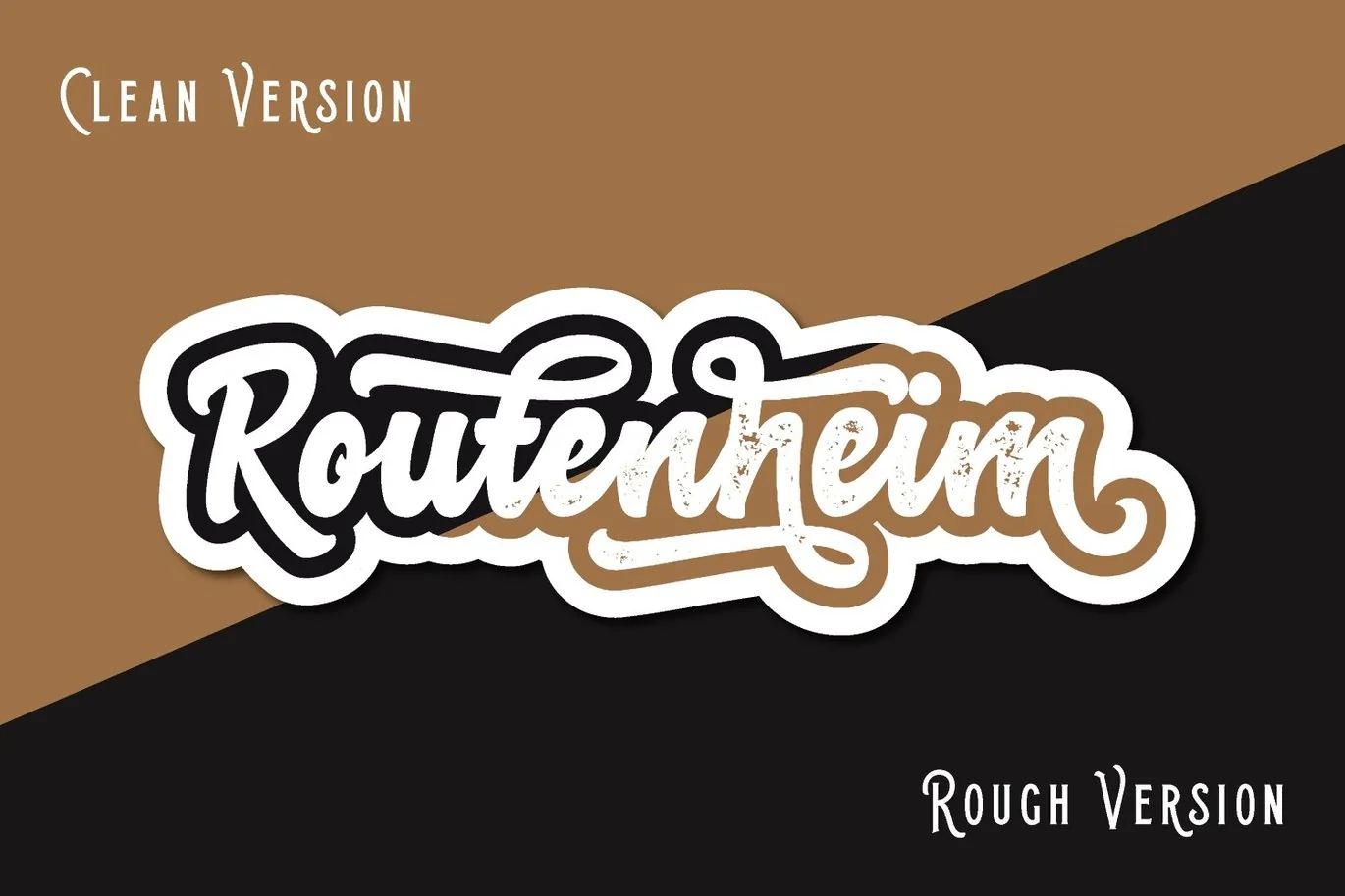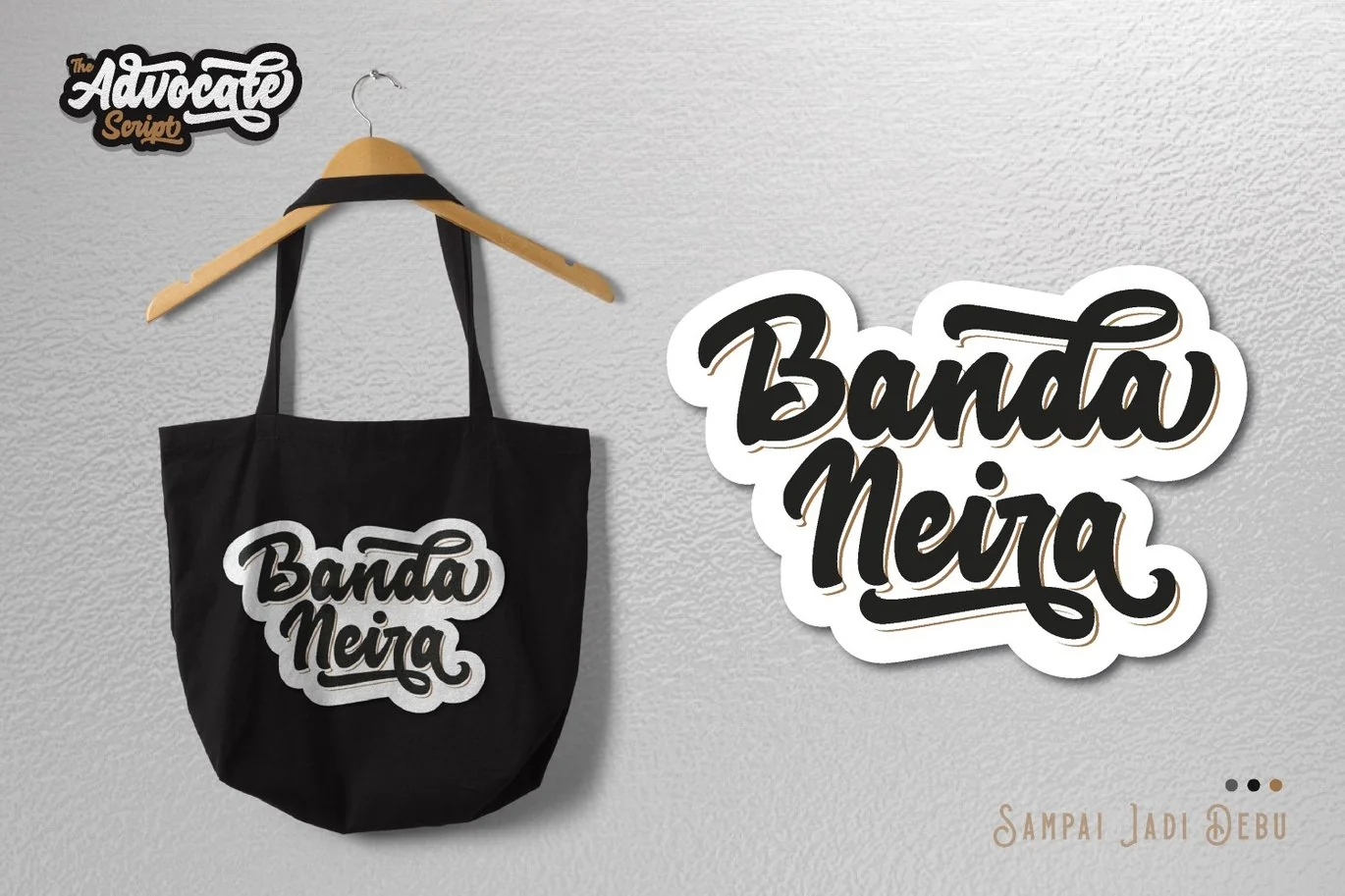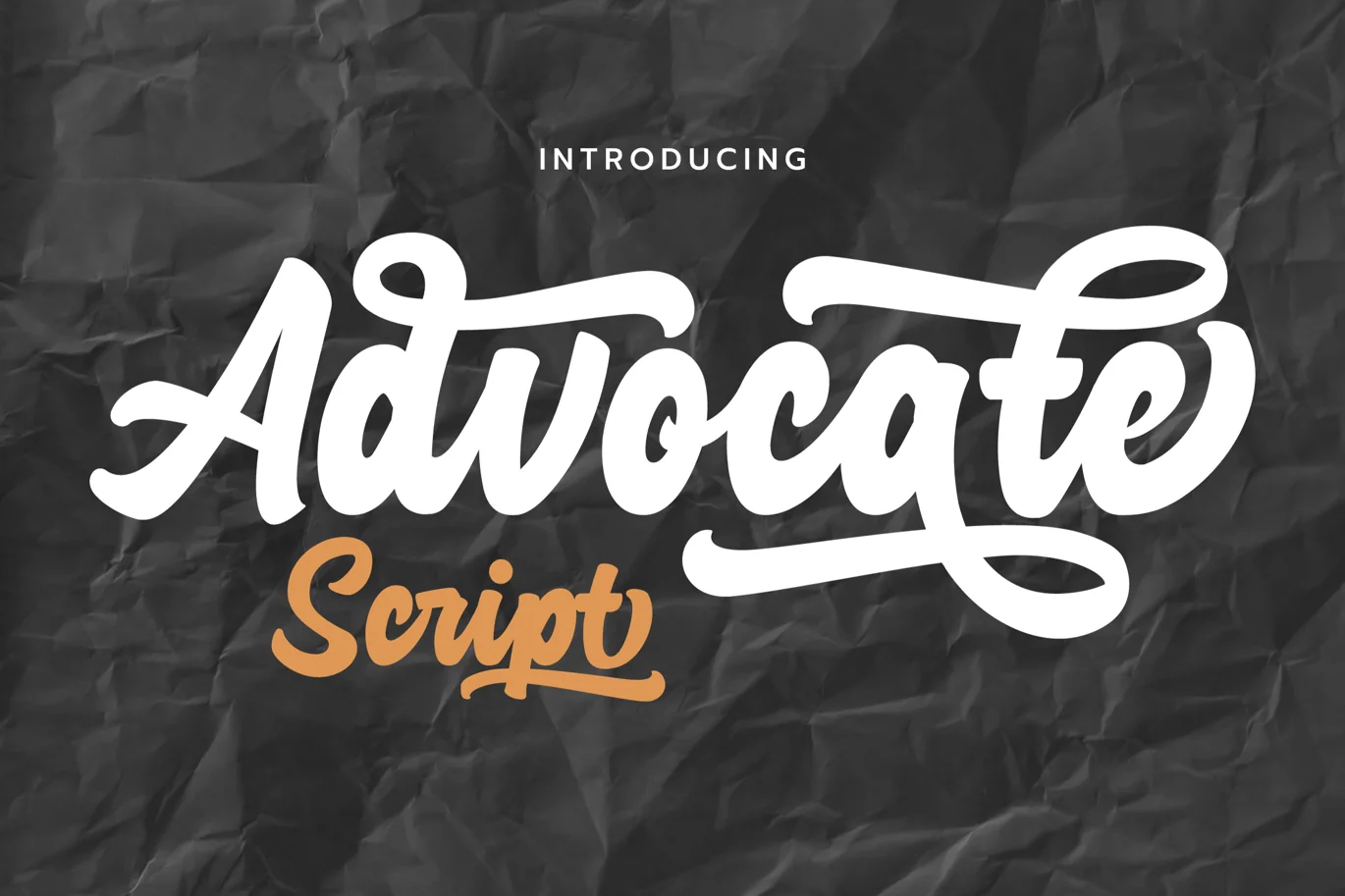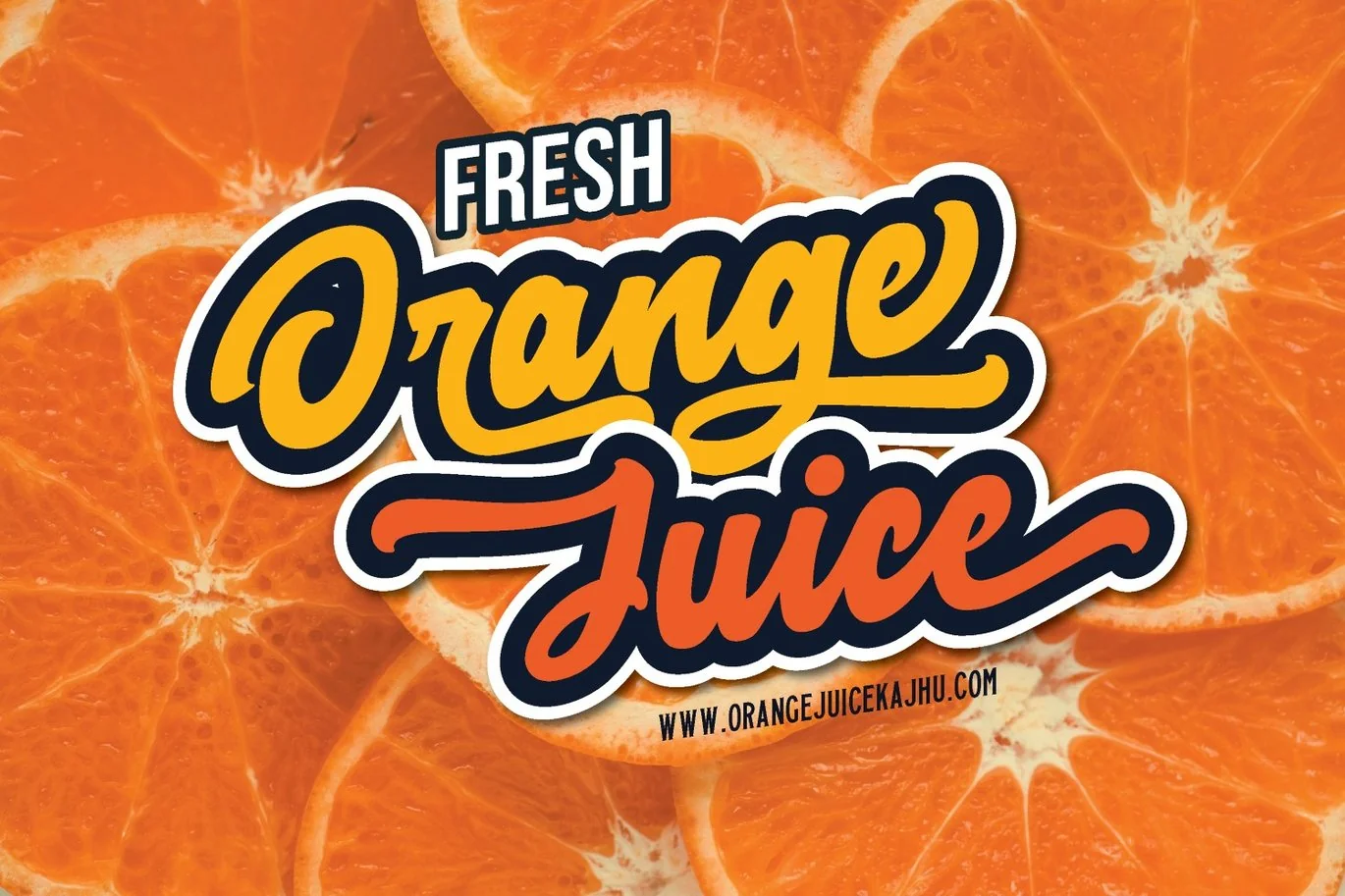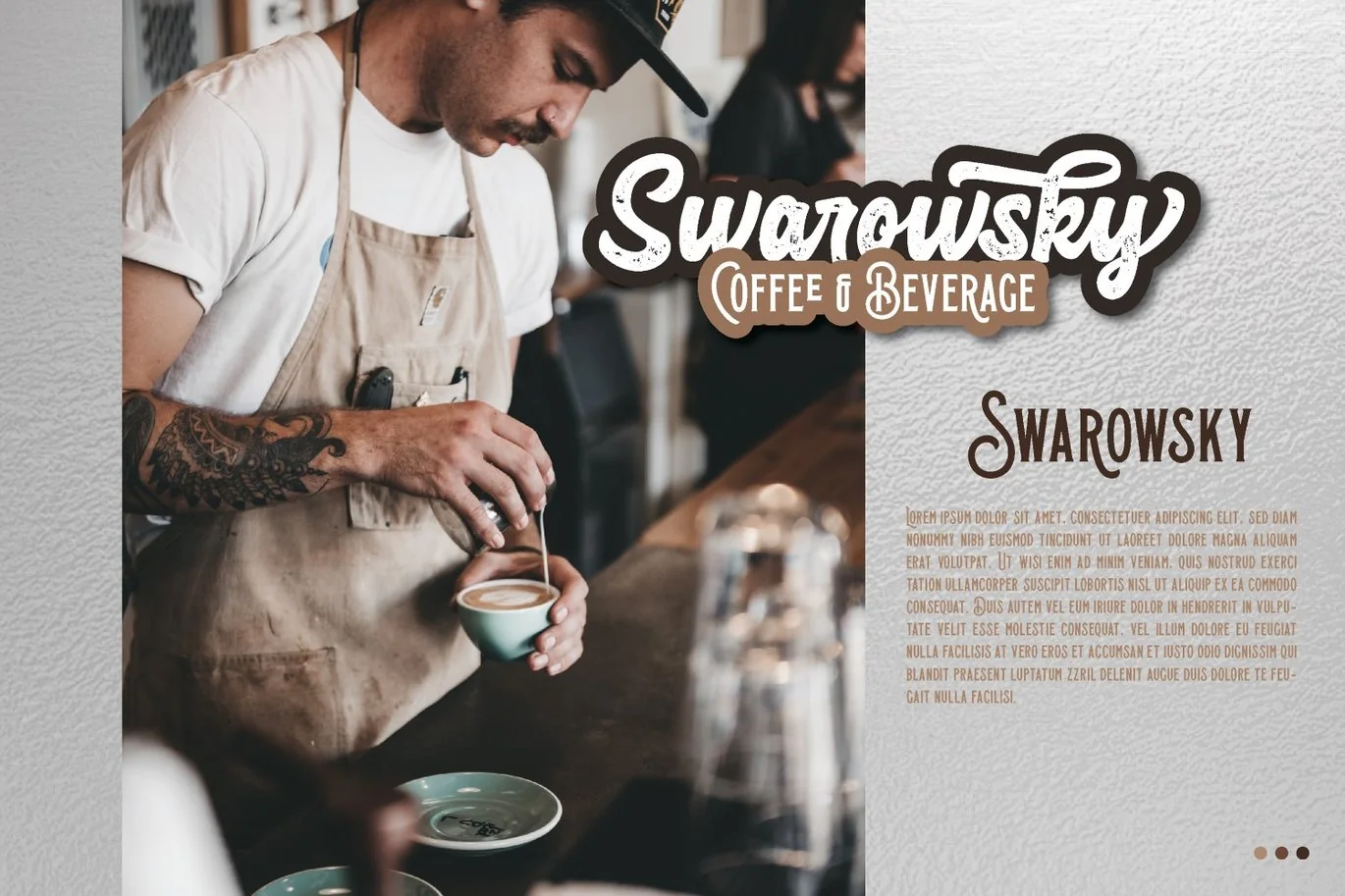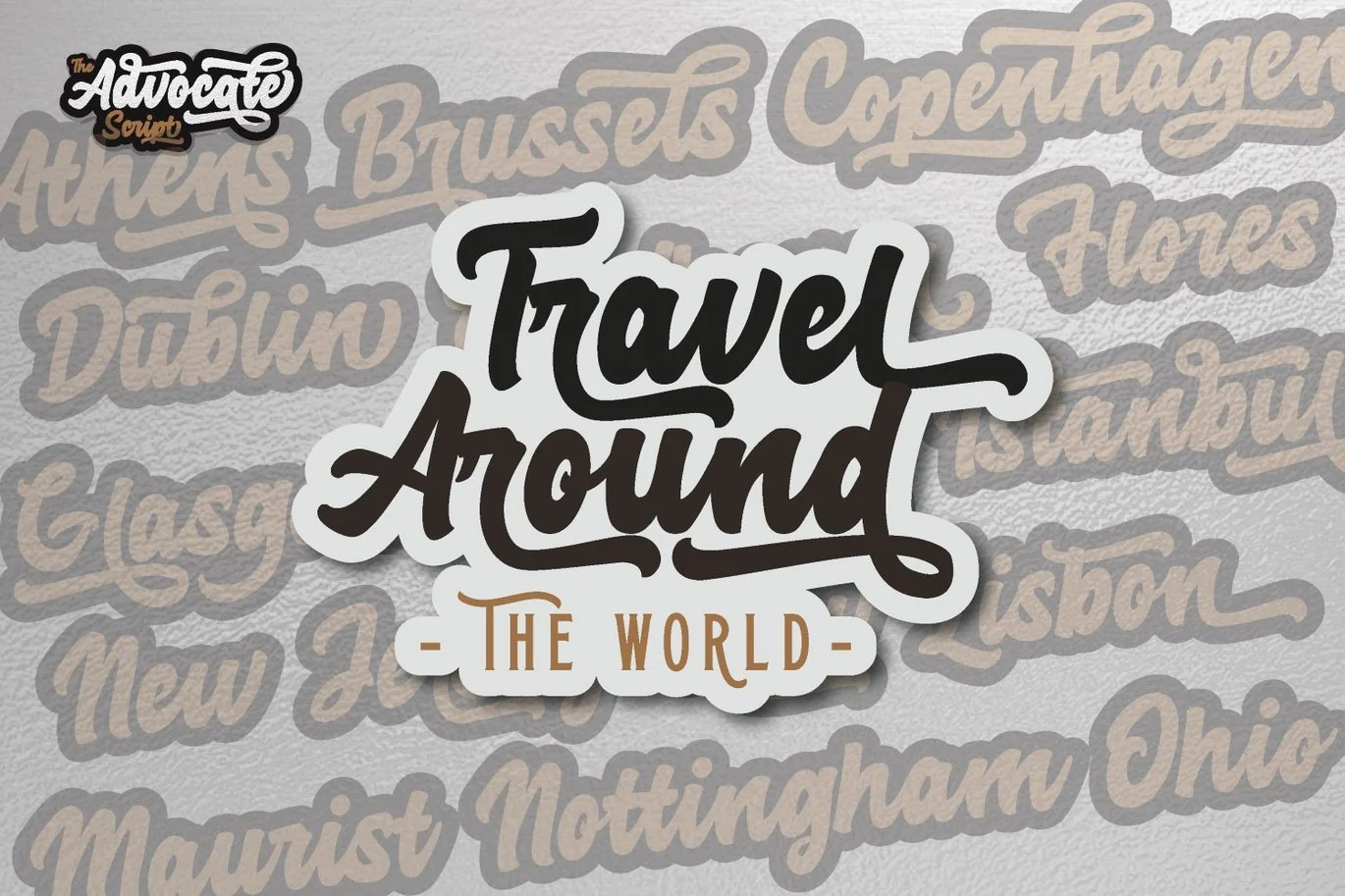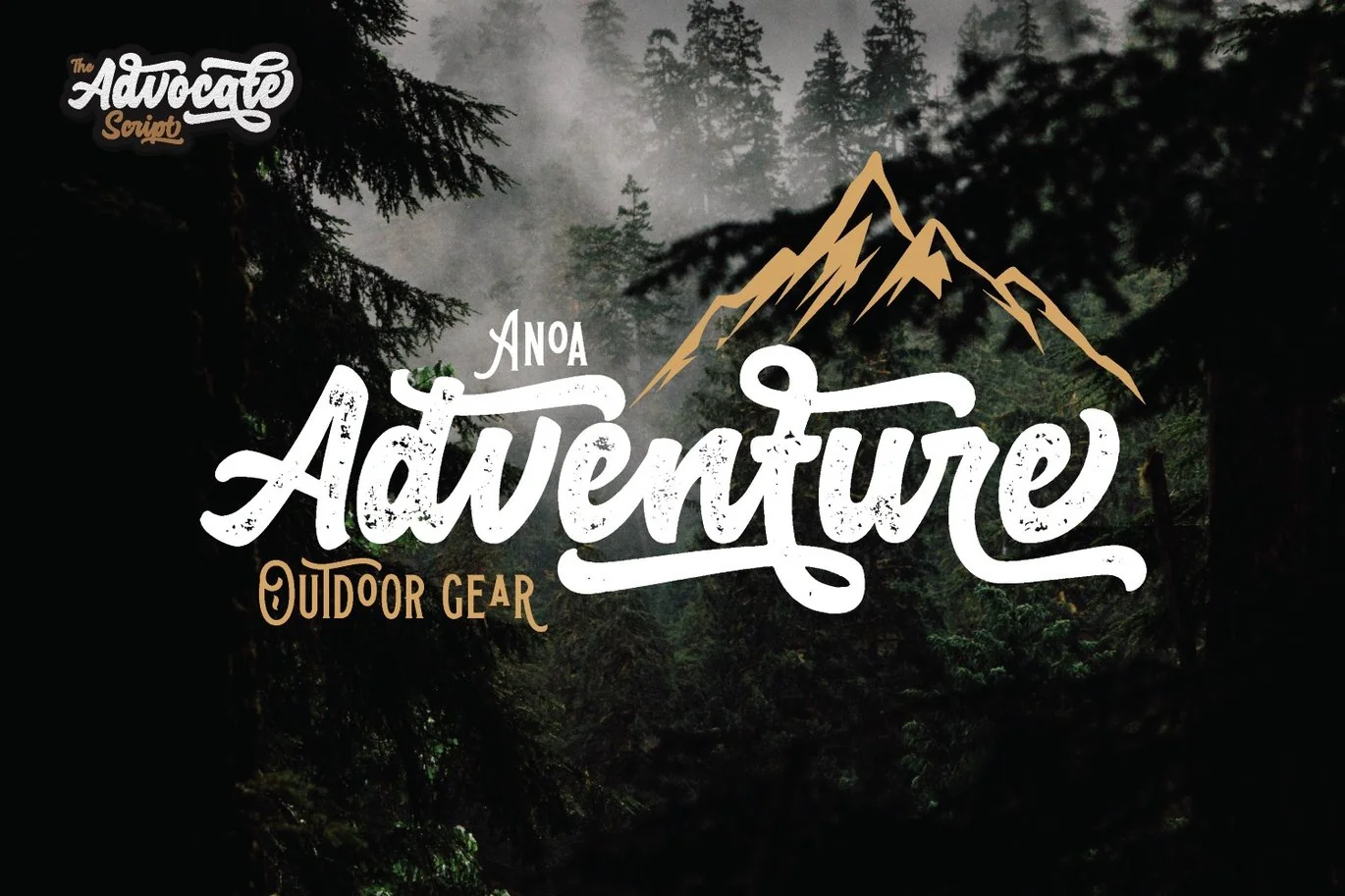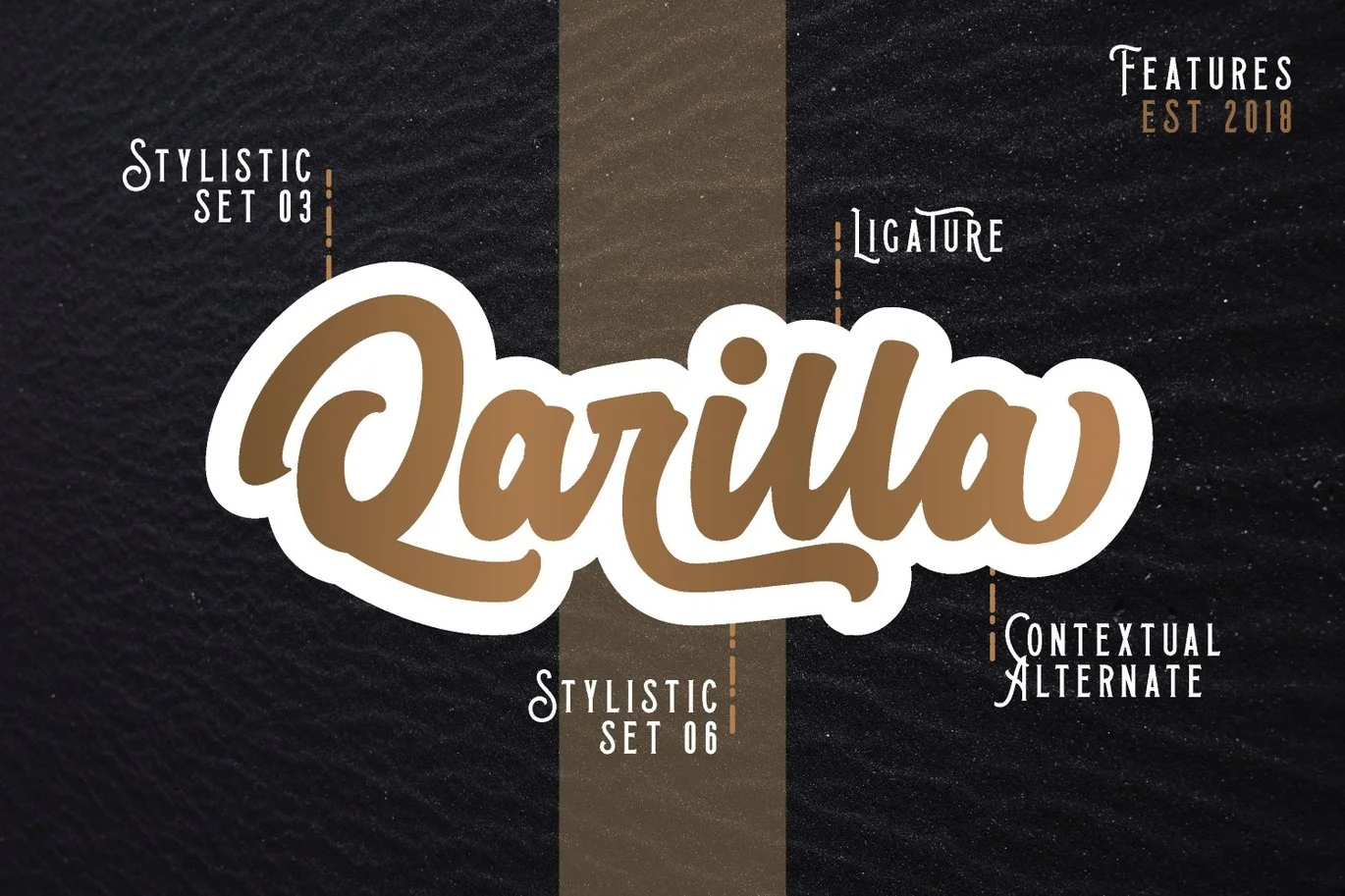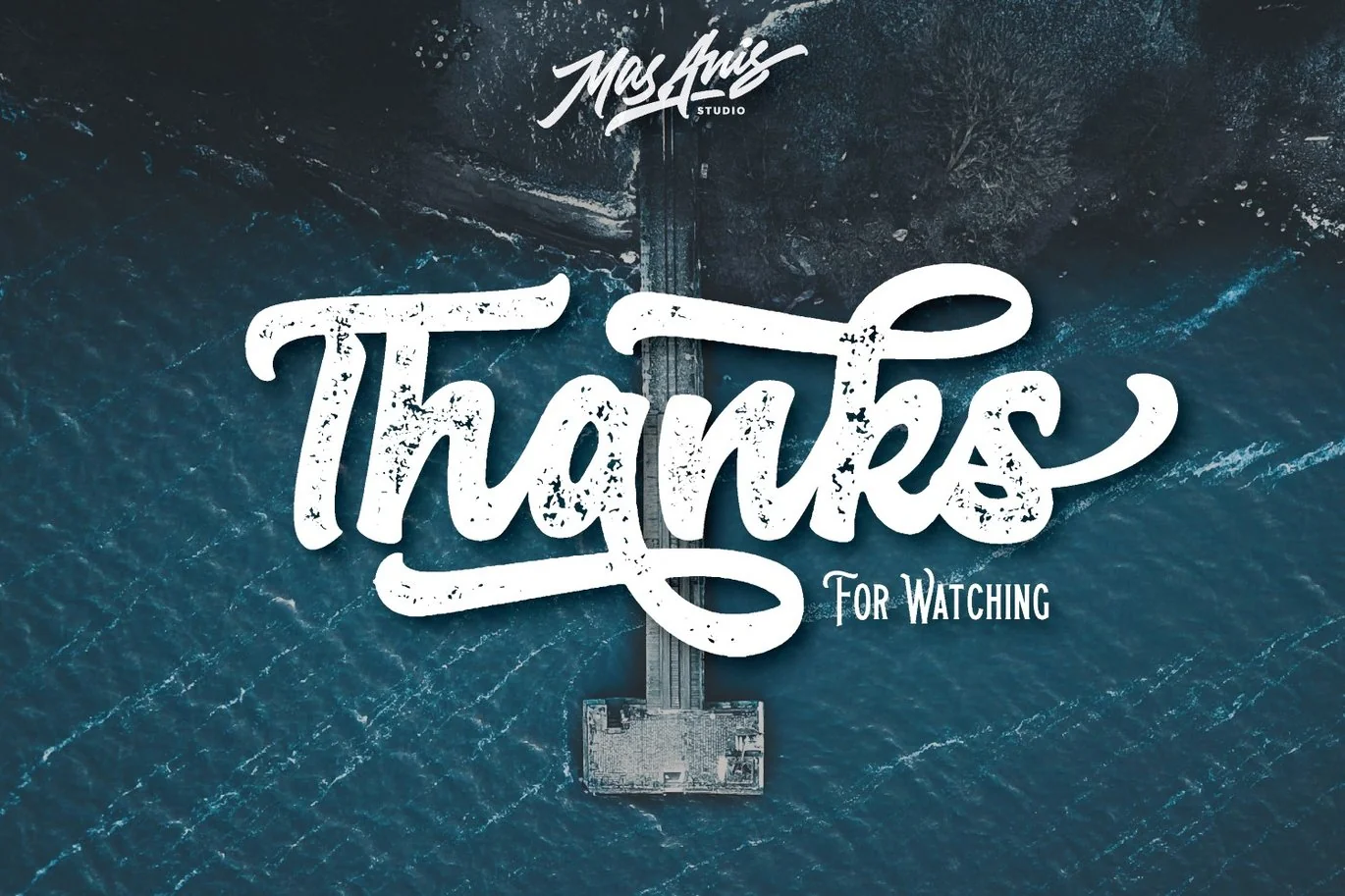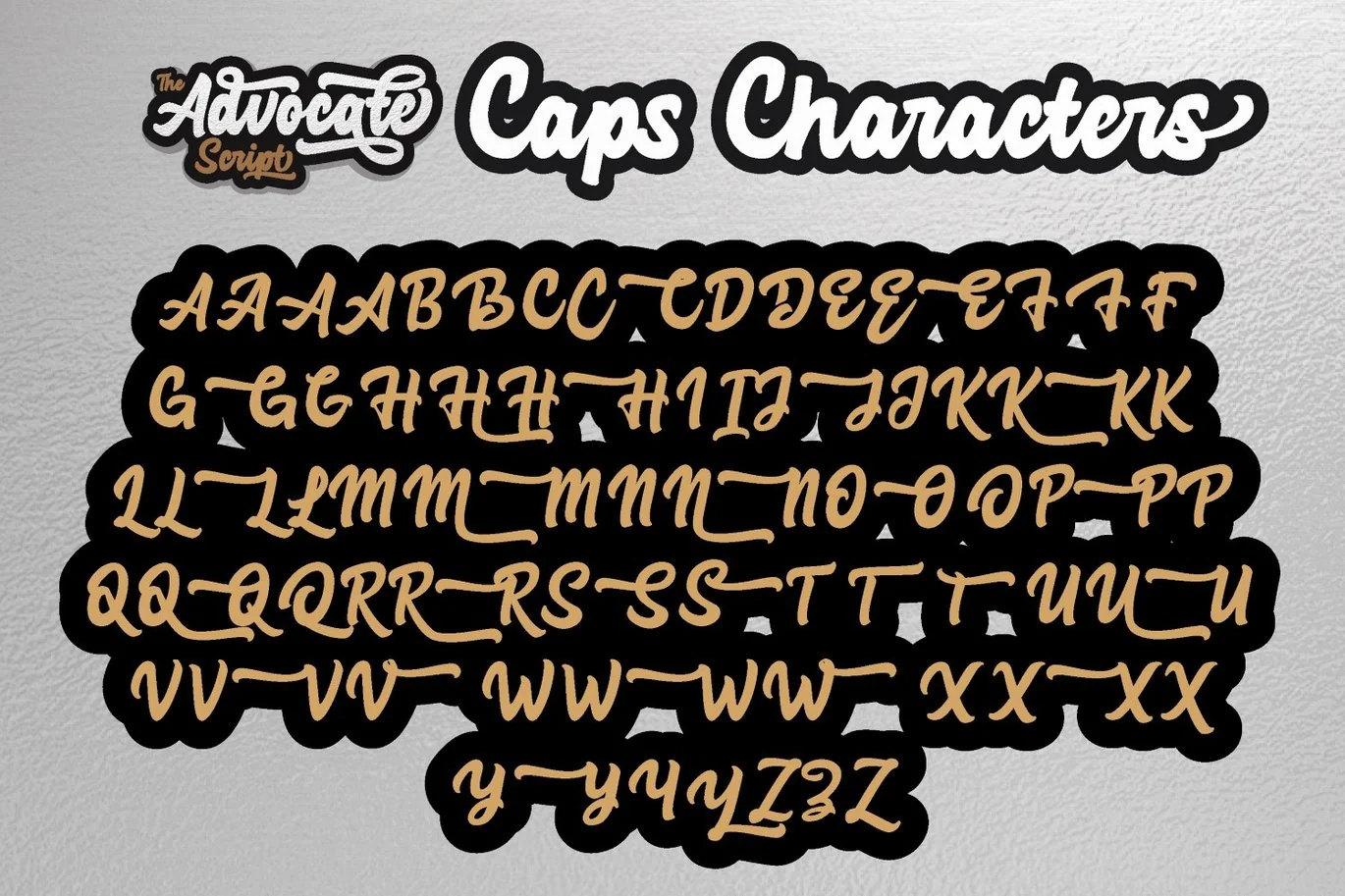
Advocate Script 4 Style Font
The Advocate Script is a brand new simple bold script we made for you, with classic neat hand-lettering style, attractive swashes, and alternates to make your designs work easier. Ideal for logos, handwritten quotes, product packaging, header, poster, merchandise, social media & greeting cards.
For you all who wanna make an epic classic logo, this font also comes with a rough effect version which will give your logo have more classic and simple fine feel. All glyphs are made by smooth touch to make every single curve look perfect.